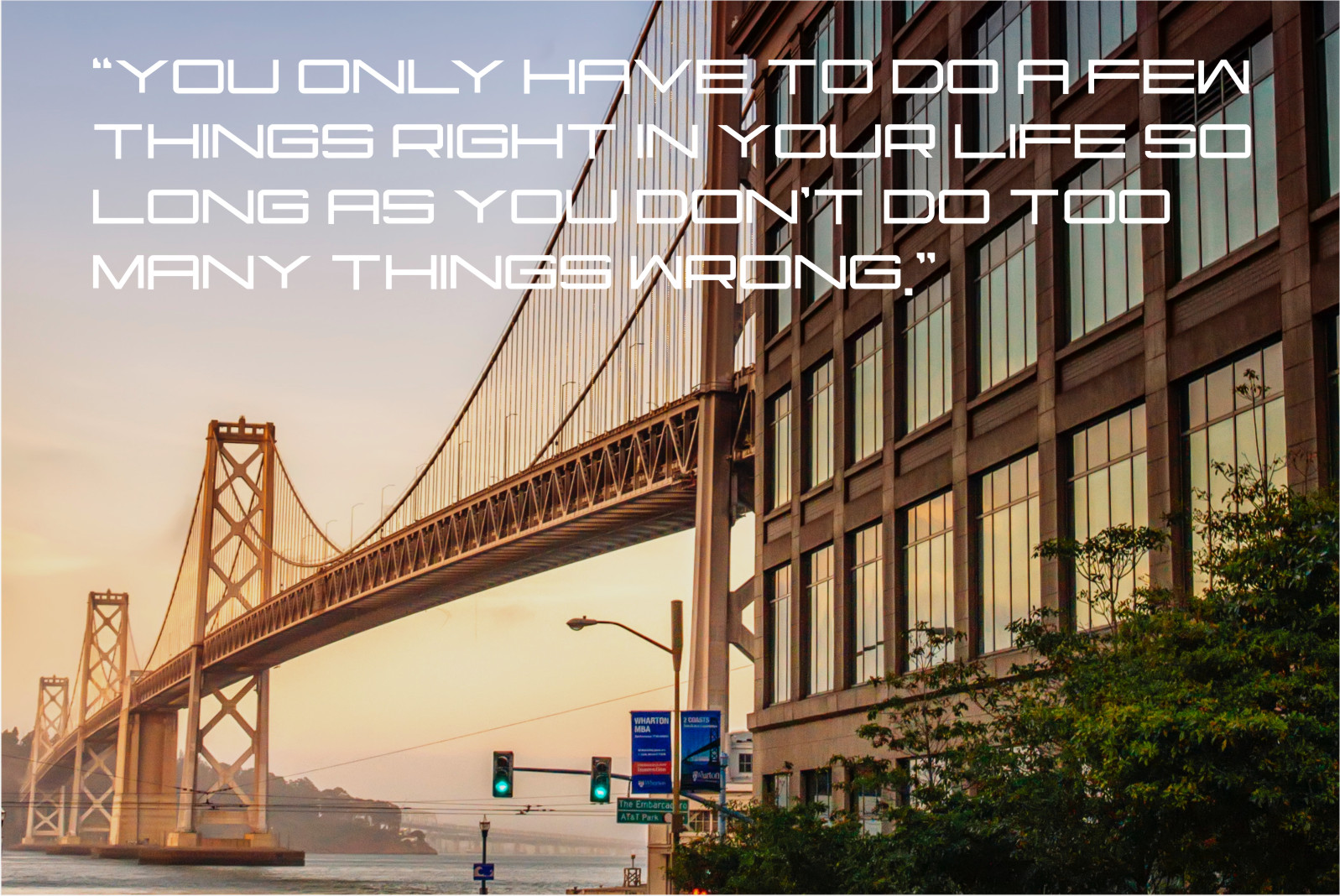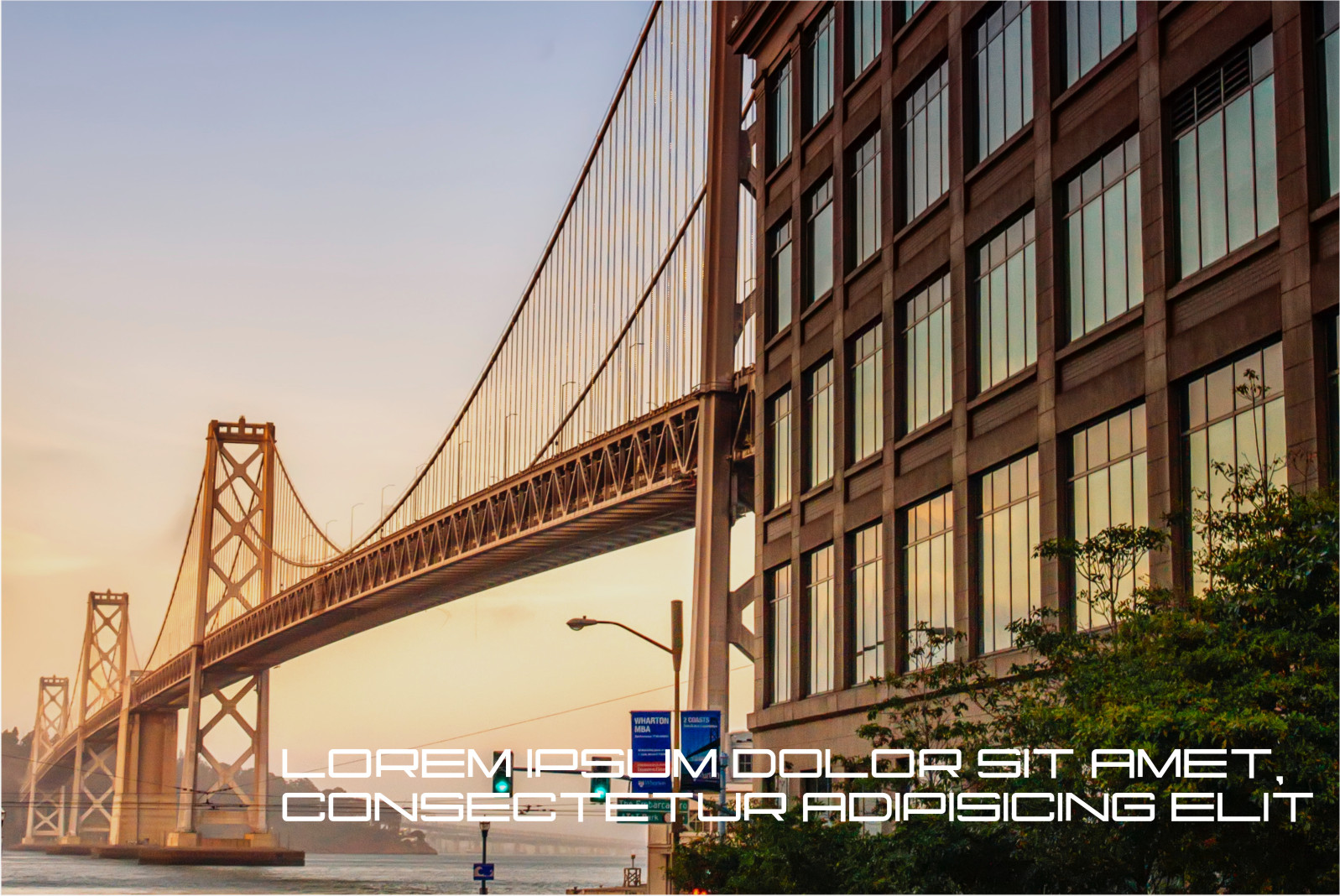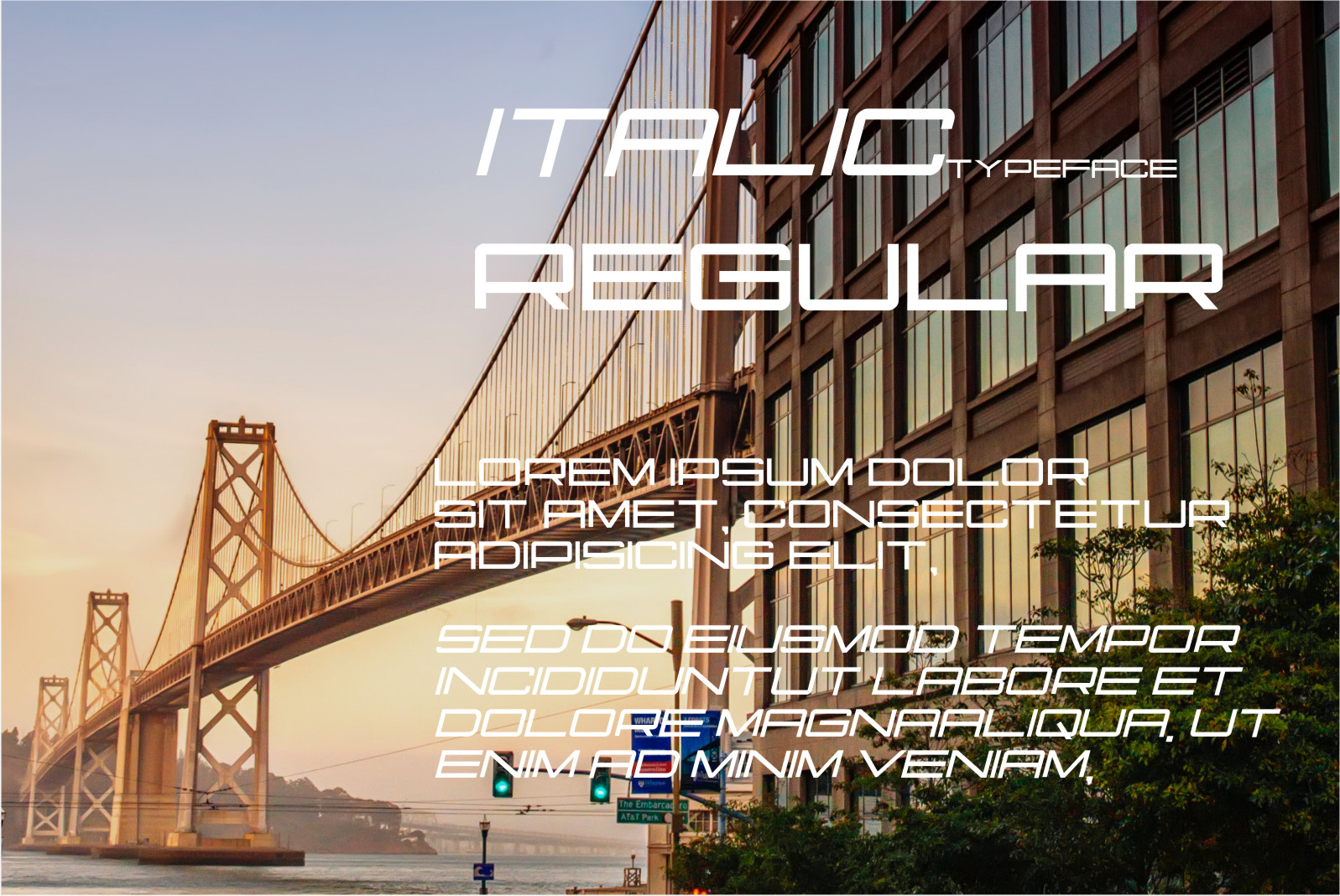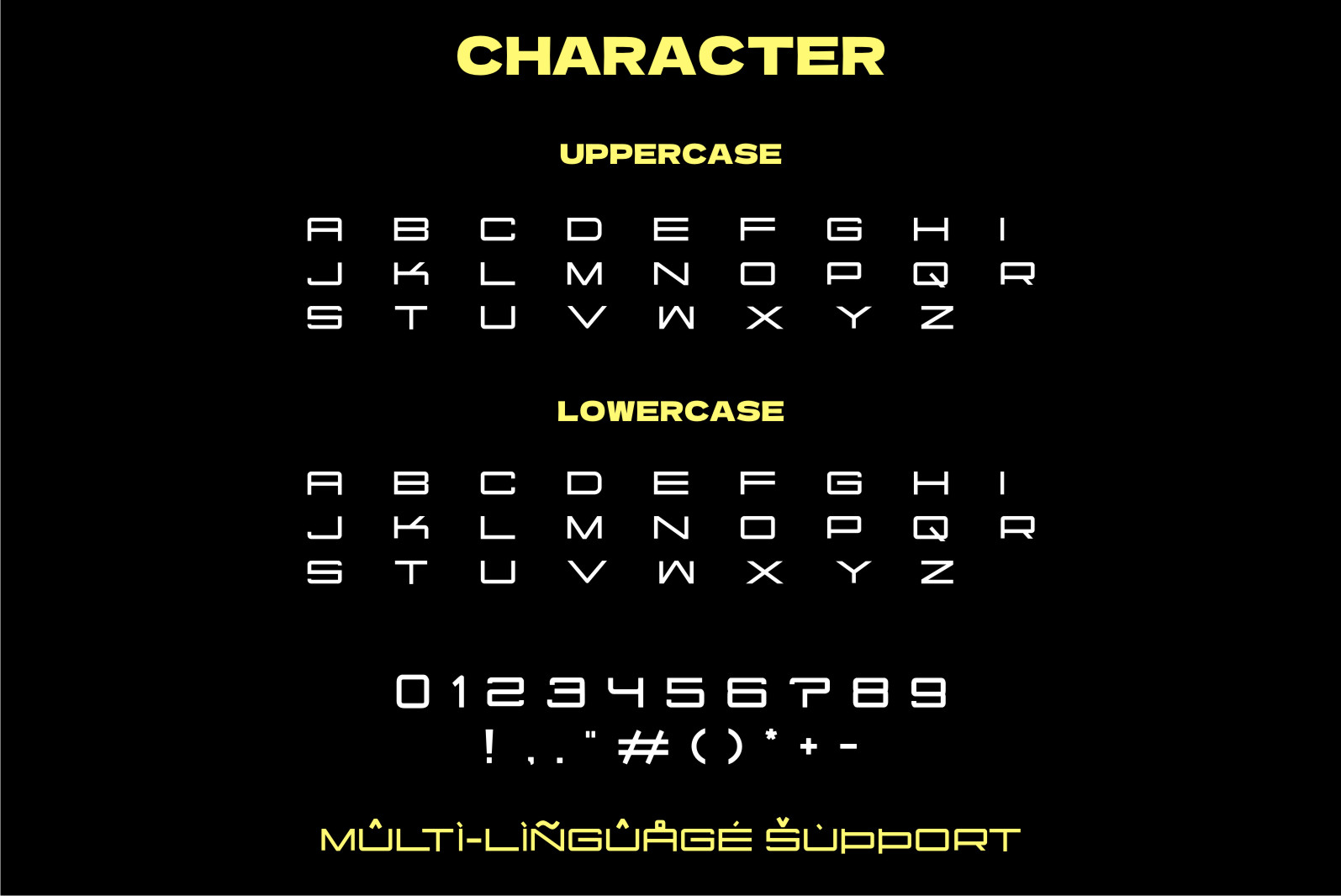
Mentium Font
Mentium Display Font
It’s a cool and robotic-styled display font. This font is ideal for writing web designs, business cards, or pretty much anything else that requires a futuristic touch.